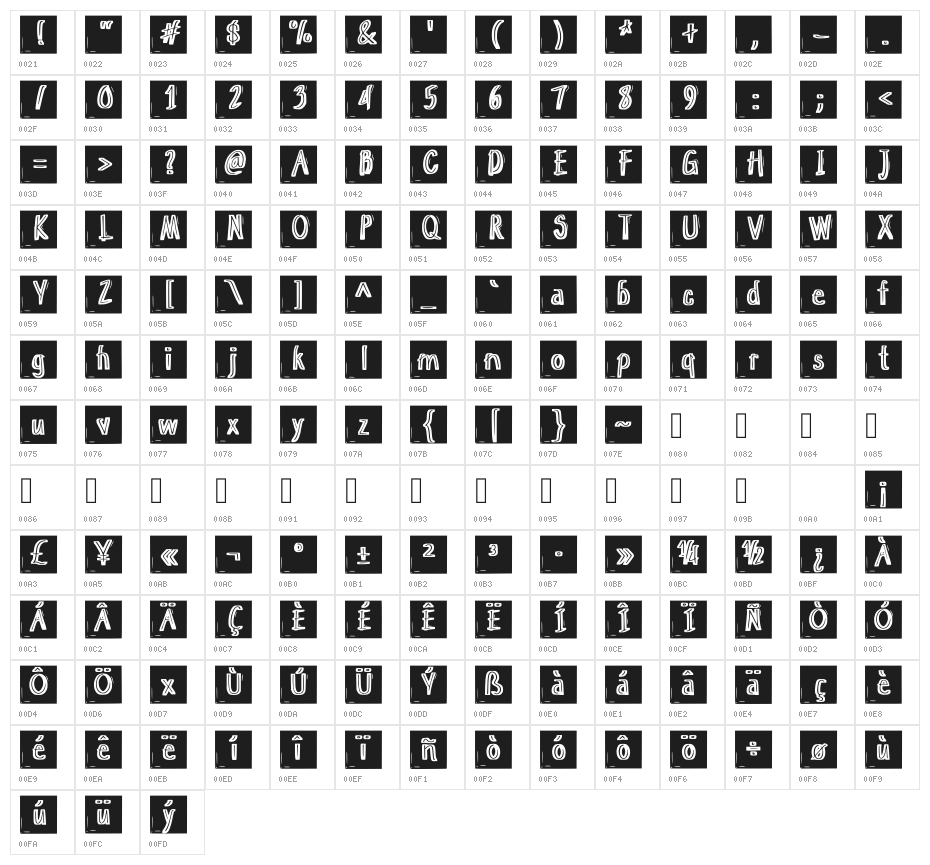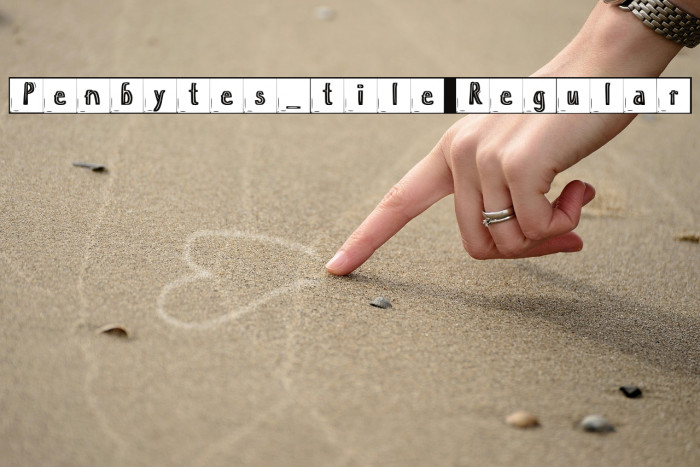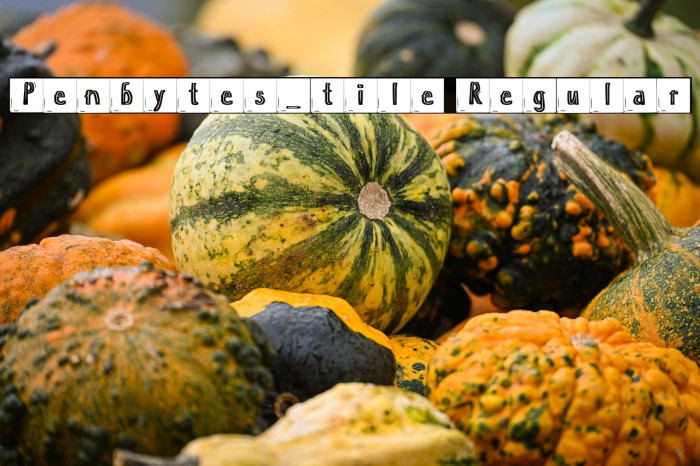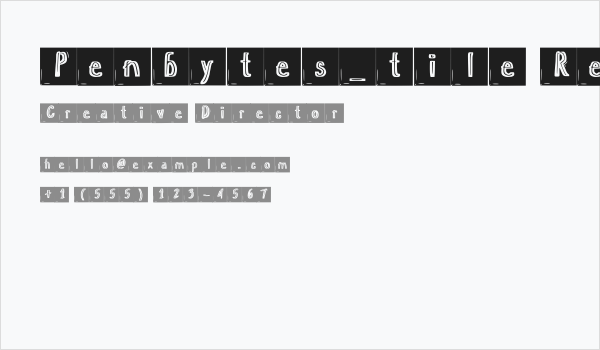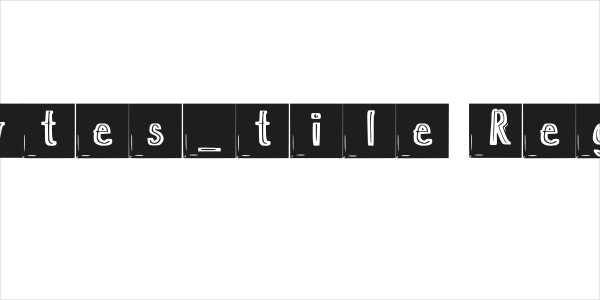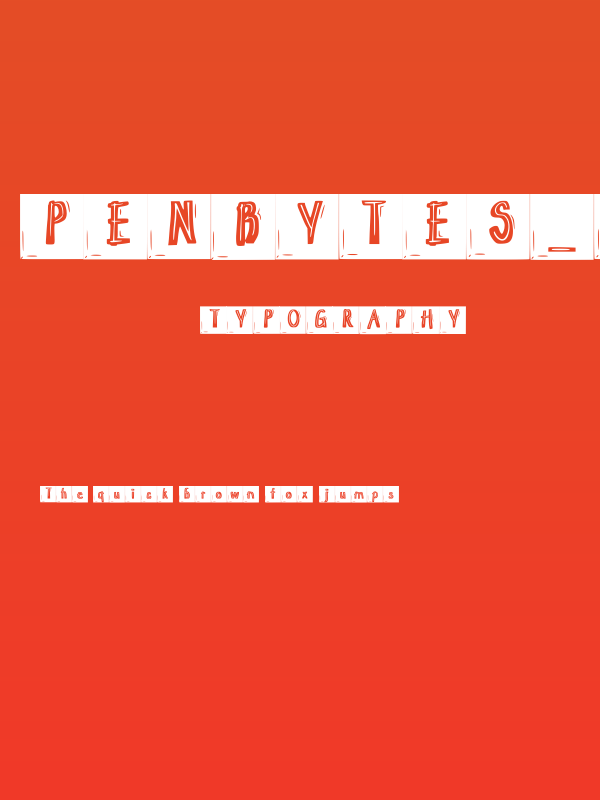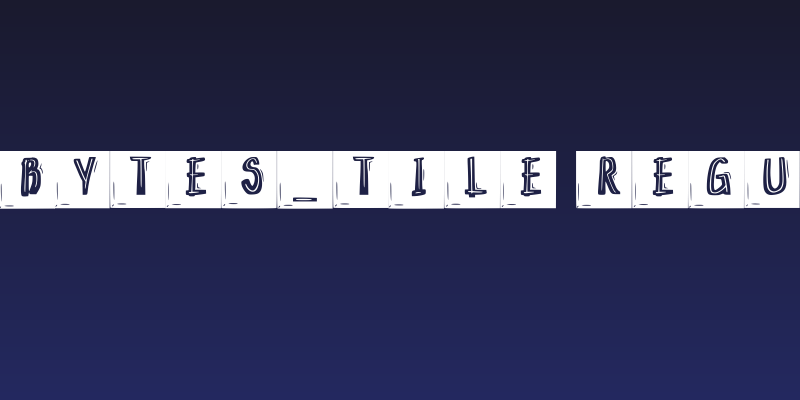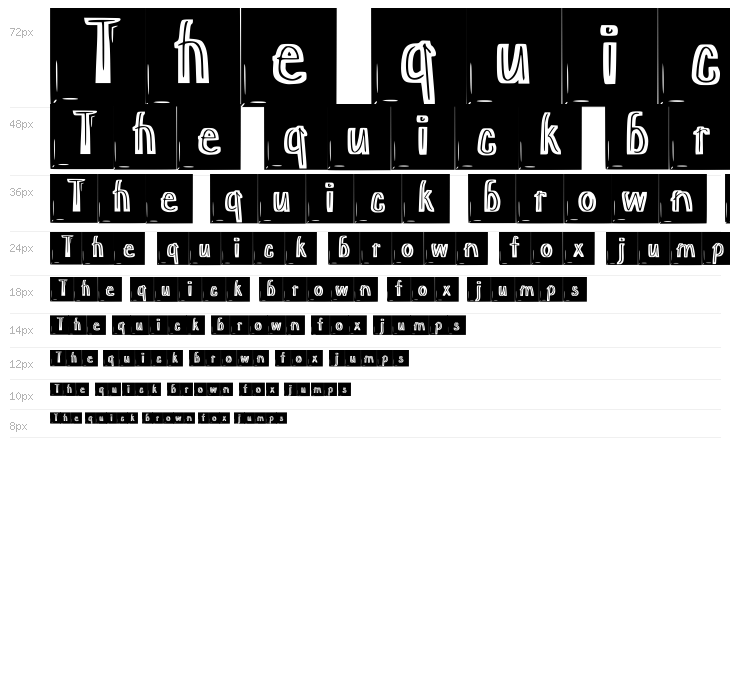
Penbytes_tile Regular Font
Penbytes_tile Regular Description
This font features a playful and quirky design with a hand-drawn aesthetic. Each character is enclosed within a square, giving it a unique, boxed appearance. The letters have uneven strokes and a casual, informal style, reminiscent of doodles or sketches. The uppercase and lowercase letters maintain a consistent style, with slight variations in stroke width and character height. The numbers and special characters follow the same playful theme, making the font suitable for creative and informal projects.
Overall StylePlayful, Quirky, Hand-drawn
Use CaseHeadlines, Logos, Informal Text
Proposed ProjectsIdeal for children's books, comic strips, casual invitations, and playful branding.